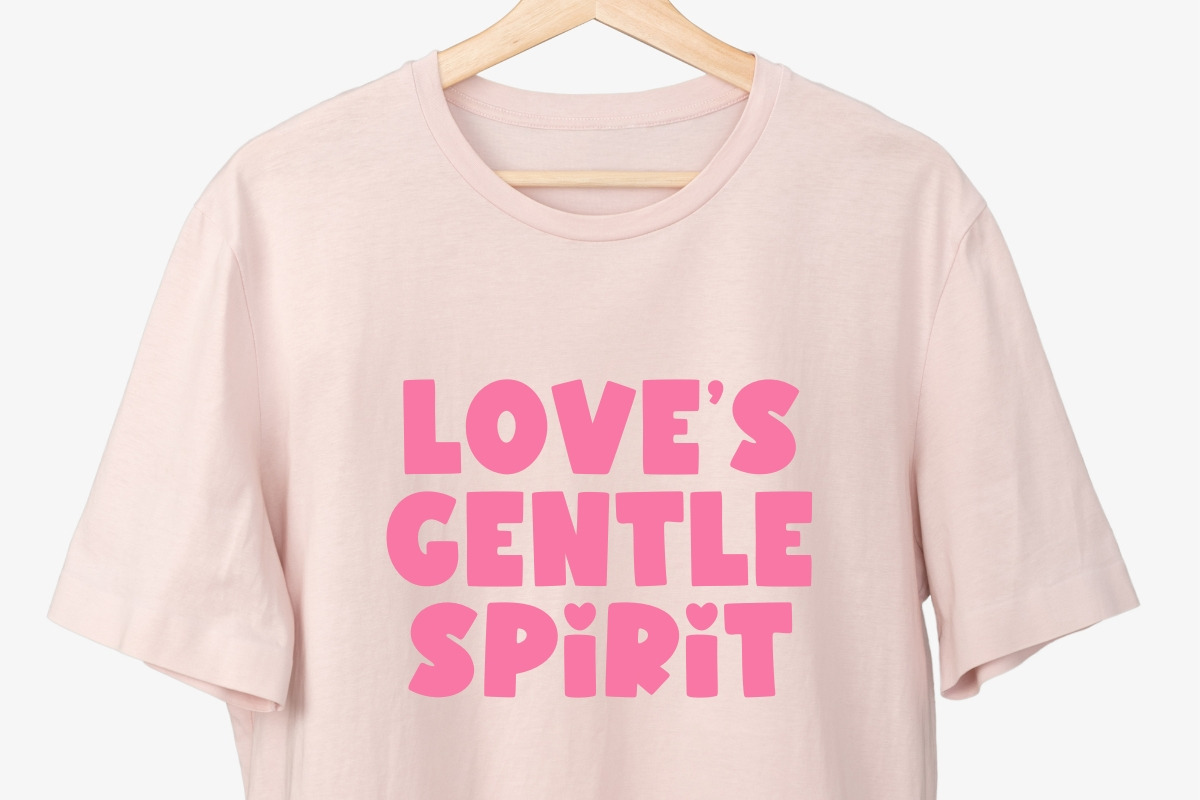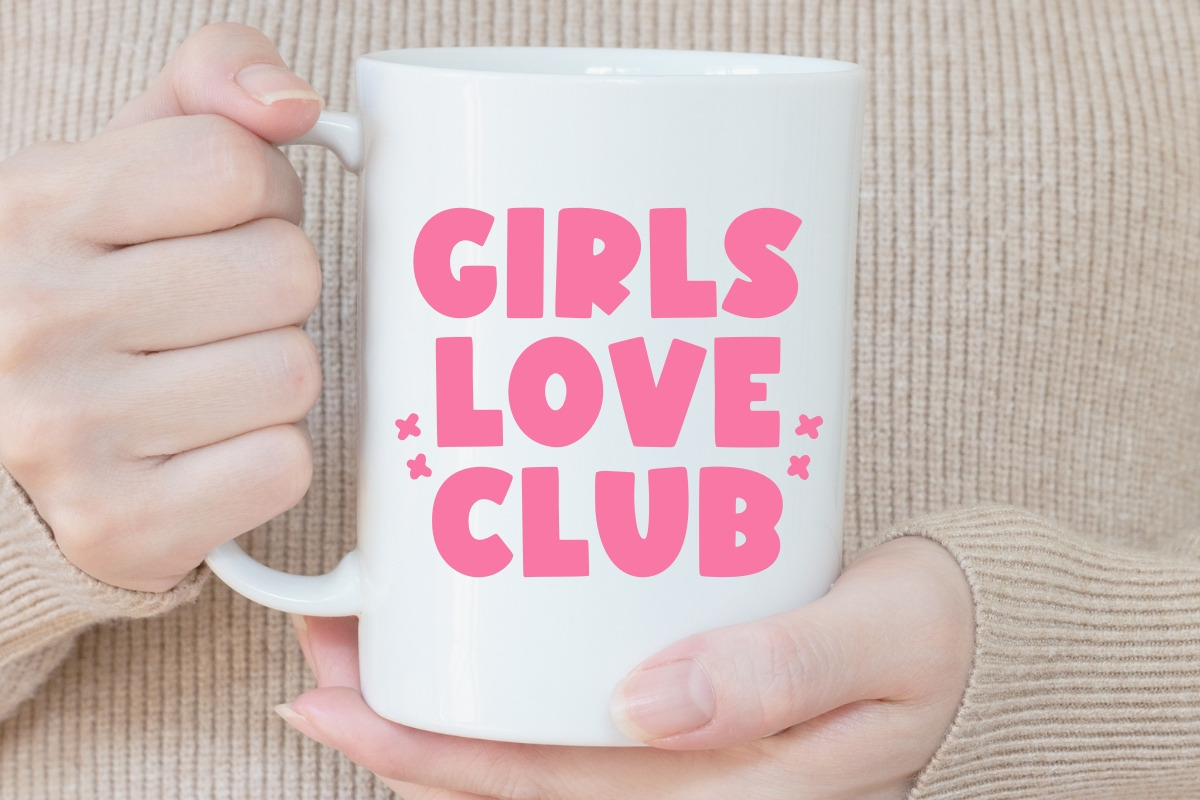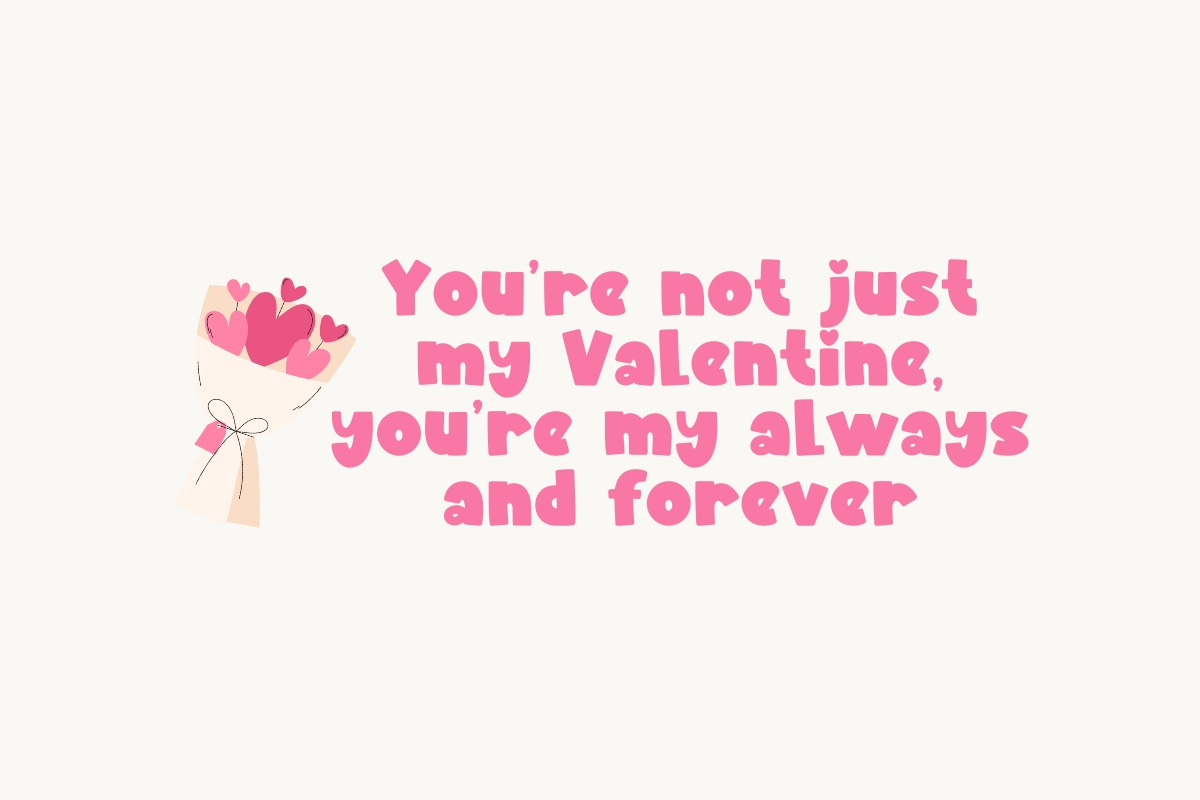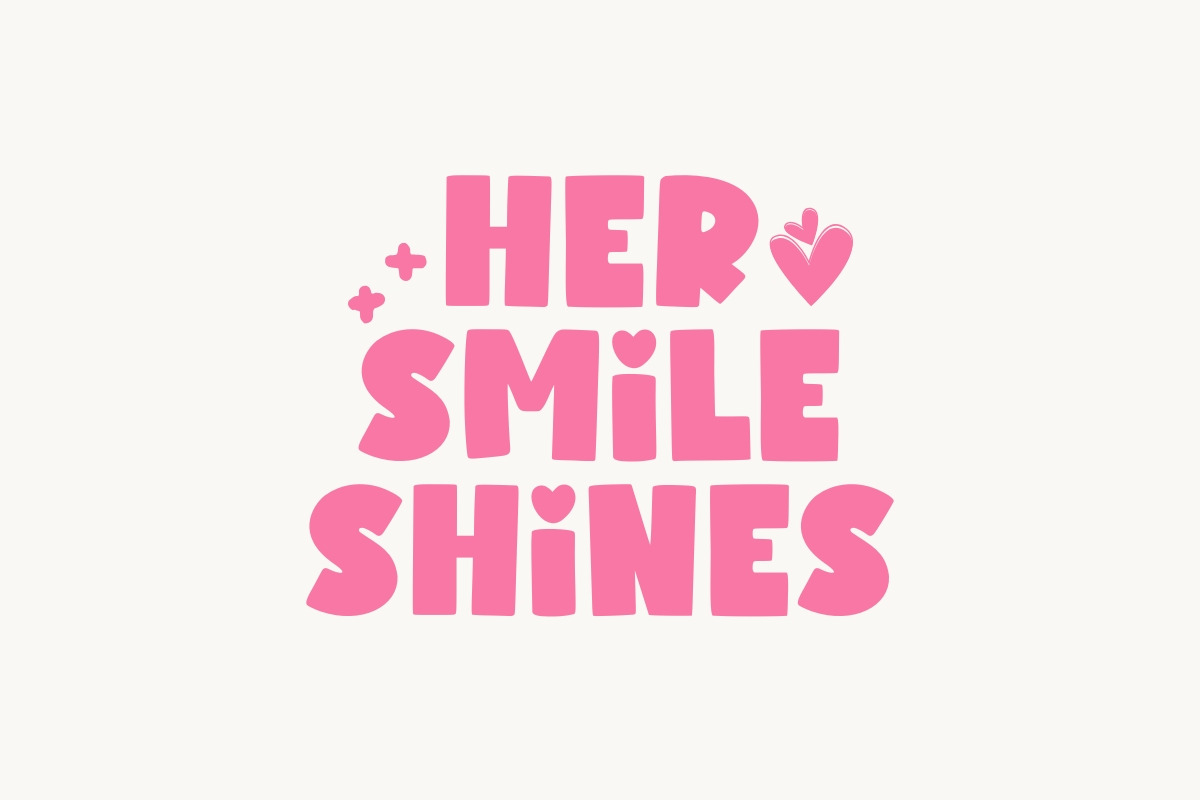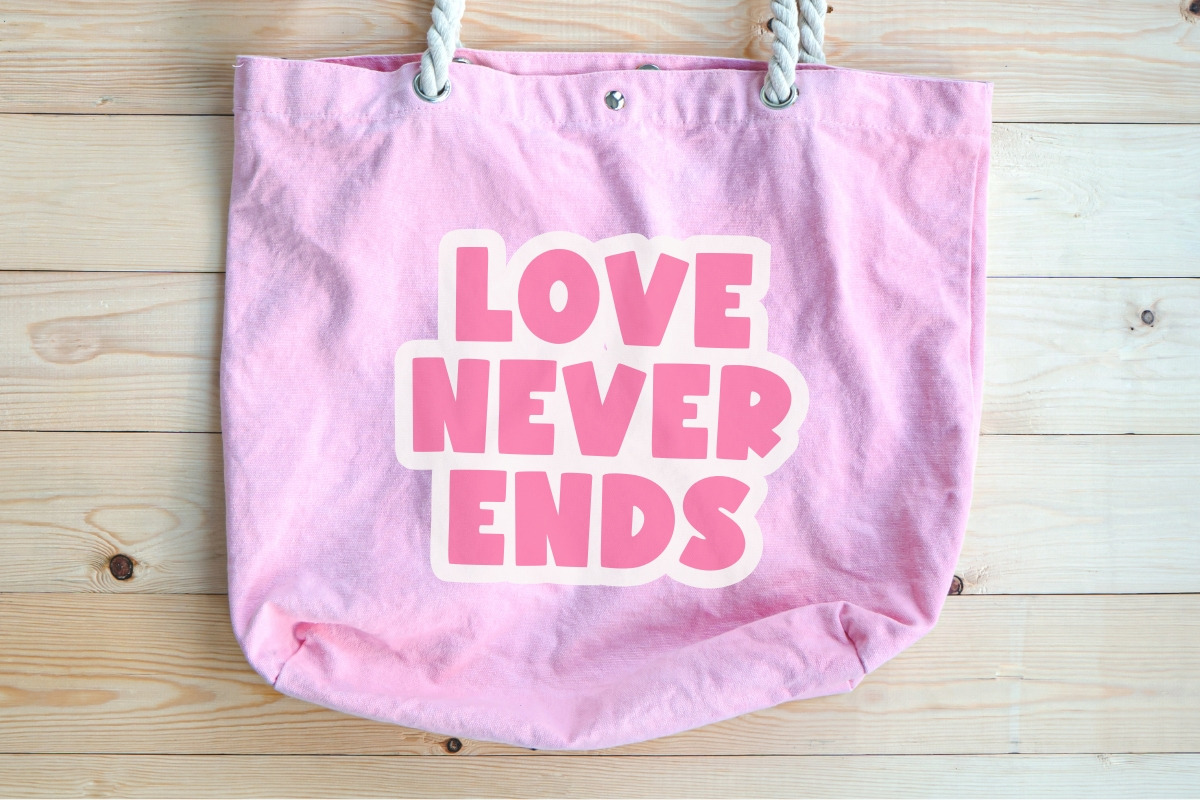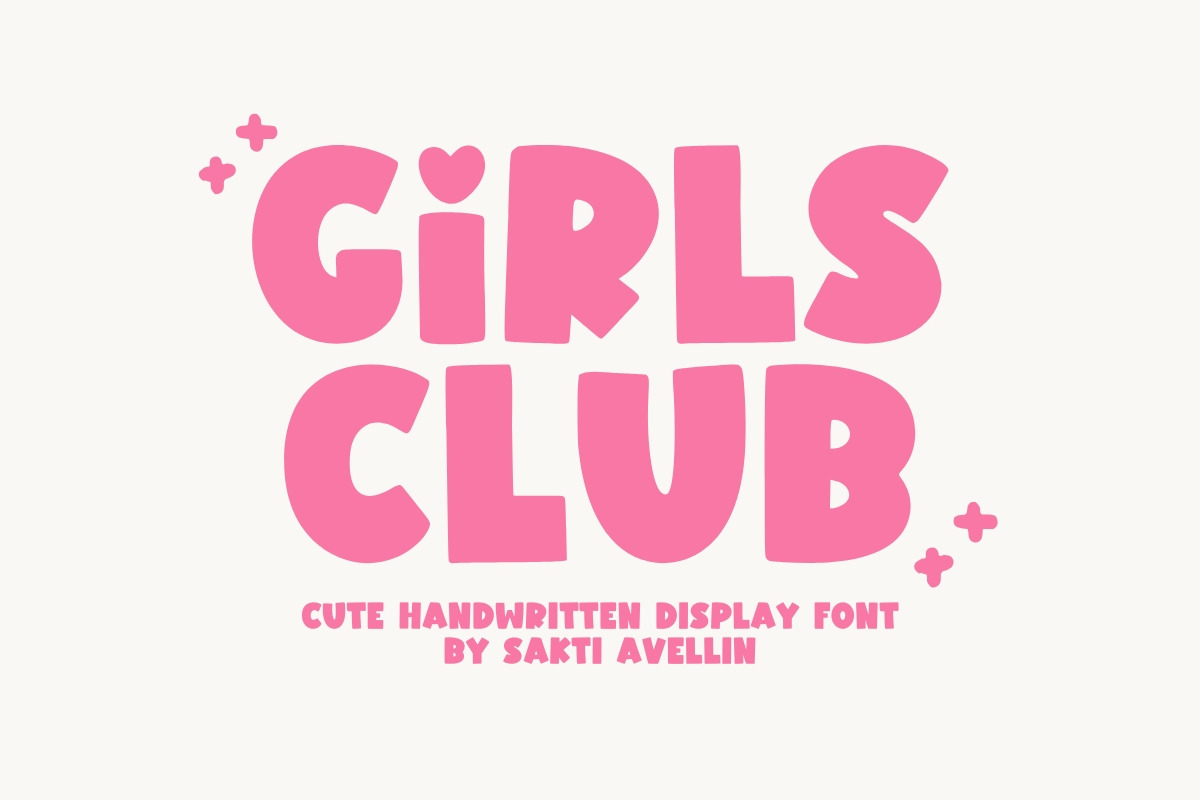
Girls Club - Cute Handwritten Font
Girls Club is an incredibly cute handwritten display font that exudes fun, boldness, and confidence. This chunky font features thick, rounded characters, perfect for kids' branding, fun feminine logos, vibrant t-shirt prints, nursery decor, and engaging social media graphics. Its high visibility and friendly style ensure it works powerfully as a display typeface, ideal for product packaging and crafting projects aimed at a youthful, trendy audience. Its charming design includes little heart details, emphasizing the sweet aesthetic. Join the club and add instant personality to your designs with this delightful and modern playful font!